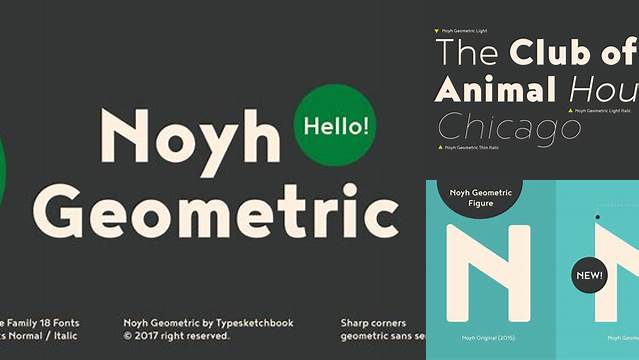
Hey guys! Are you on the hunt for a sleek, modern font to elevate your design projects? Look no further! The Noyh geometric font is a fantastic choice, known for its clean lines, contemporary feel, and versatility. In this article, we'll dive deep into everything you need to know about Noyh, including where to find it for free download and how to use it effectively in your designs.
What is Noyh Geometric Font?
Noyh is a geometric sans-serif typeface characterized by its minimalist design and precise construction. Its clean, uncluttered letterforms make it highly legible and suitable for a wide range of applications. The font often features a modern aesthetic, making it a popular choice for branding, editorial design, and digital interfaces. Its geometric structure ensures a consistent and harmonious appearance across different weights and styles, contributing to a polished and professional look. With its versatility and contemporary appeal, Noyh is an excellent option for designers seeking a typeface that combines functionality with visual elegance.
Geometric fonts like Noyh are all the rage these days, and for good reason! Their simplicity and clarity make them incredibly versatile. Whether you're designing a logo, creating website content, or working on a print project, Noyh can bring a touch of sophistication and modernity. Its geometric construction ensures that each character feels balanced and harmonious, resulting in a visually pleasing and professional finish. Plus, the clean lines make it super easy to read, even at smaller sizes. This makes it an ideal choice for body text as well as headlines.
When you're looking at geometric fonts, it's important to consider the overall tone and message you want to convey. Noyh, with its modern and minimalist aesthetic, is perfect for brands that want to project a sense of innovation, efficiency, and clarity. Think tech companies, startups, and businesses in the creative industries. However, it can also be used effectively in more traditional contexts, especially when paired with complementary fonts and design elements. For example, you could use Noyh for headings and subheadings, and then choose a more classic serif font for the body text. This creates a nice contrast and adds visual interest to your design.
Noyh's appeal lies in its ability to be both understated and impactful. It doesn't shout for attention, but it subtly enhances the overall design with its clean, confident presence. This makes it a valuable asset in any designer's toolkit. Whether you're a seasoned pro or just starting out, experimenting with Noyh can open up new possibilities and help you achieve a more polished and professional look in your projects. So go ahead, give it a try and see how it can transform your designs!
- Mobile Apps: Noyh is a popular choice for mobile app interfaces. Its legibility and clean lines make it easy to read on small screens.
The Noyh geometric font is a fantastic choice for designers looking for a modern, versatile, and legible typeface. While finding it for free download may require some digging, the effort is well worth it. By following the tips and resources outlined in this article, you'll be well on your way to incorporating Noyh into your design projects and creating stunning visuals that stand out from the crowd. Happy designing, guys!